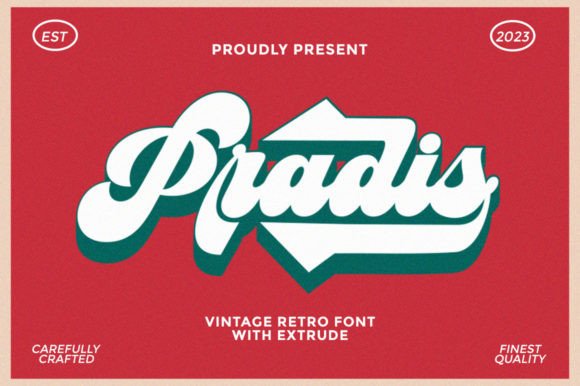
Welcome to the realm of Pradis, an urban retro font that exudes the charm of logotype lettering. Every business yearns for a distinct brand identity, and that's where Pradis steps in as your indispensable ally. With its vintage aura, Pradis effortlessly grants a nostalgic touch to your creations, evoking a sense of authenticity and heritage. Picture yourself crafting a timeless logo that exudes old-world elegance, or designing awe-inspiring posters with a retro twist. Pradis is the key to unlocking your branding potential, allowing you to captivate audiences and create a truly memorable presence.
Unleash your creativity as you explore the vast array of possibilities offered by Pradis. Create stunning social media graphics that pop, design alluring packaging that enchants customers, or craft eye-catching website layouts that engage visitors. Pradis effortlessly adapts to a myriad of design projects, ensuring your brand shines brightly in both print and digital realms.
Designers and entrepreneurs, prepare to be spellbound by Pradis' ability to revitalize your brand identity. Let this font take you on a journey through time, where heritage meets modernity, resulting in truly exceptional designs. Elevate your branding game and leave an enduring impression on your audience. Embrace the power of Pradis and create something truly extraordinary.